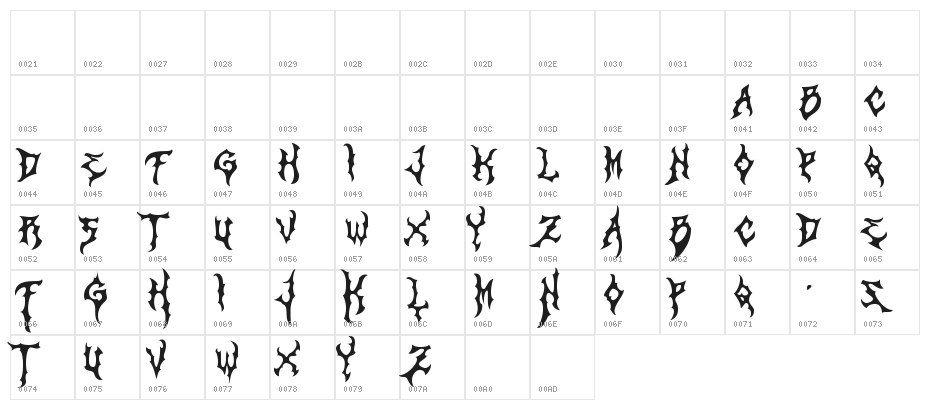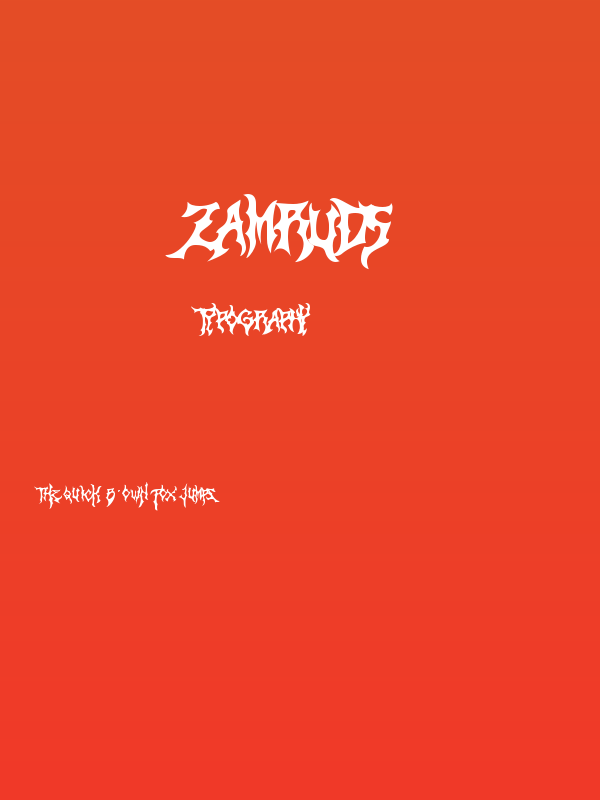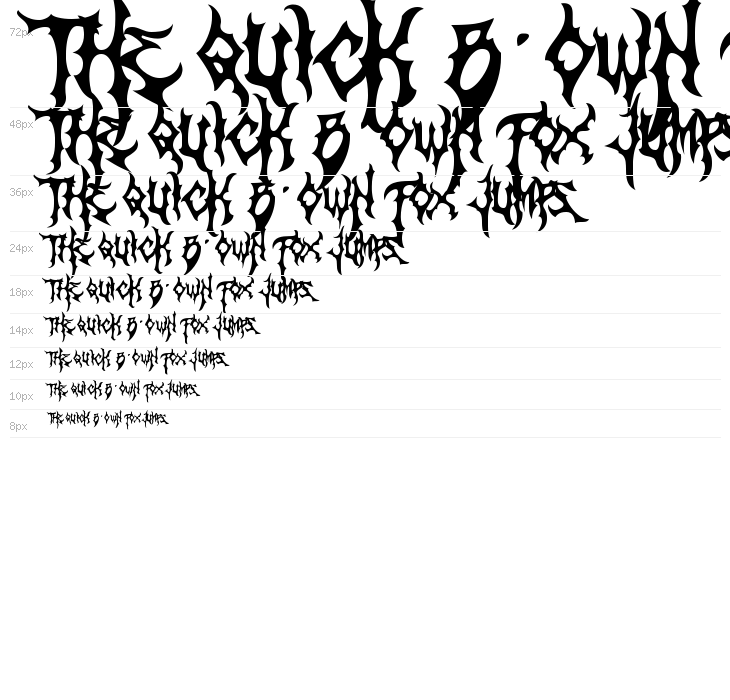
ZAMRUDS Font
ZAMRUDS Description
This font features an intricate and bold design with sharp, angular edges and a gothic aesthetic. The characters are highly stylized, with dramatic curves and pointed tips that create a sense of intensity and movement. The uppercase and lowercase letters share a consistent style, emphasizing the font's cohesive and striking appearance. The overall look is reminiscent of medieval or fantasy themes, making it ideal for projects that require a dramatic and eye-catching typeface. The font's unique style ensures it stands out, making it suitable for creative and artistic applications.
| Overall Style | Gothic, Dramatic, Artistic |
| Proposed Projects | Ideal for fantasy book covers, gothic-themed posters, album art, and creative branding. |